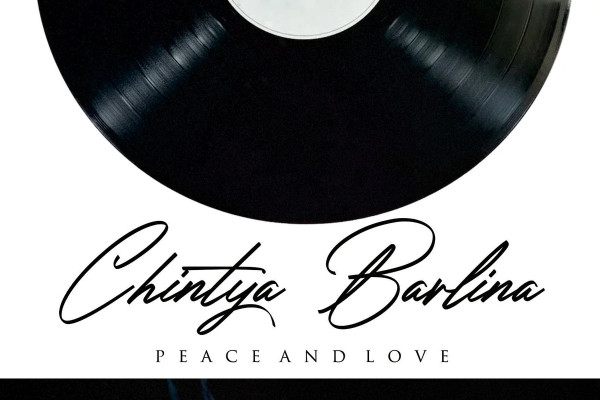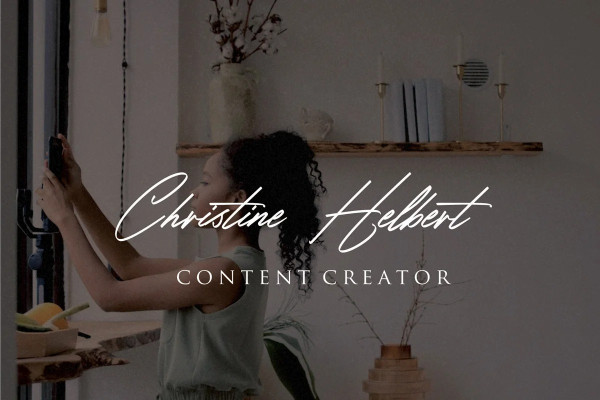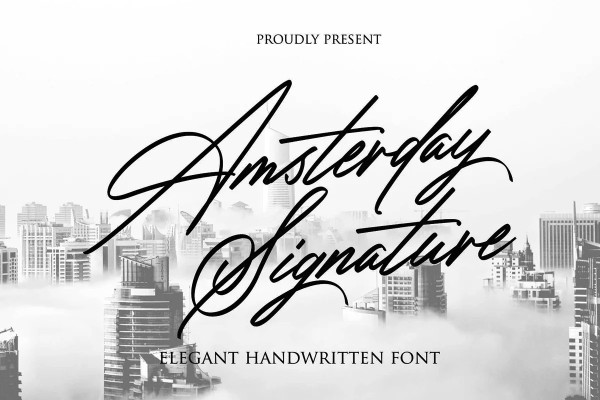
Amsterday Signature Font
Amsterday Signature Font, now available for purchase. Inspired by the timeless beauty of Amsterdam’s classic architecture and the city’s enchanting atmosphere, this font is a captivating blend of old-world charm and contemporary grace.
The “Amsterday Signature” font boasts a unique and refined design, reflecting the city’s essence with every stroke. Its captivating curves and harmonious lines exude a sense of class and elegance, making it a perfect choice for a wide range of design projects, from invitations and branding materials to social media graphics and more.